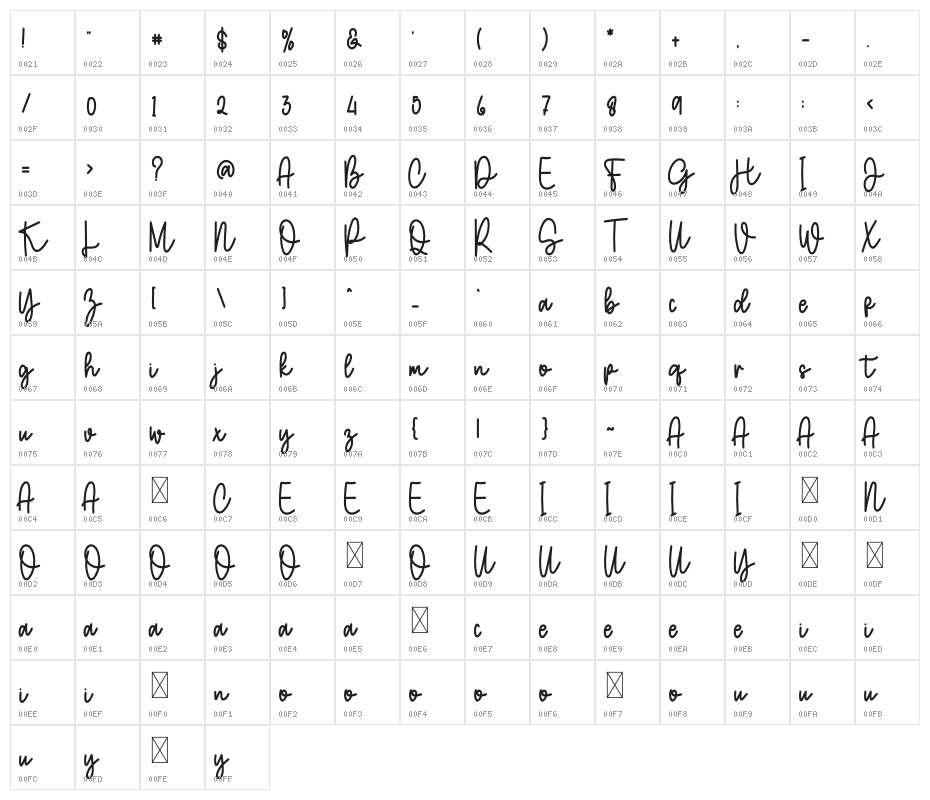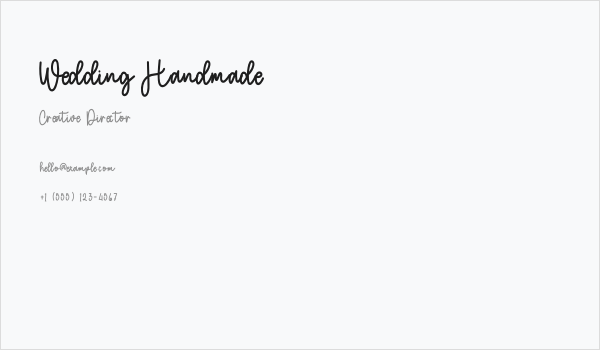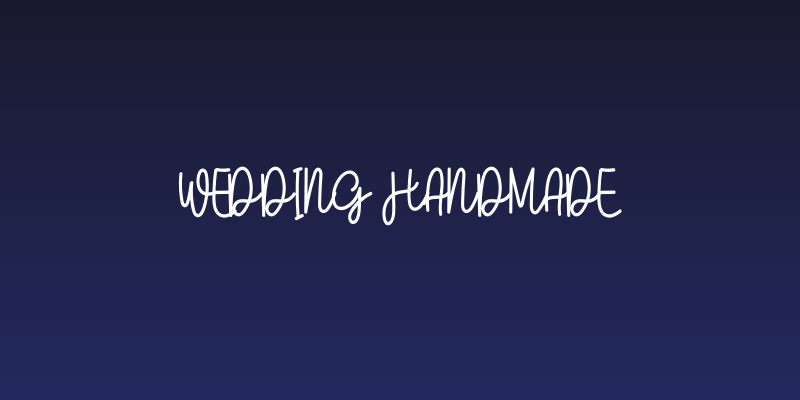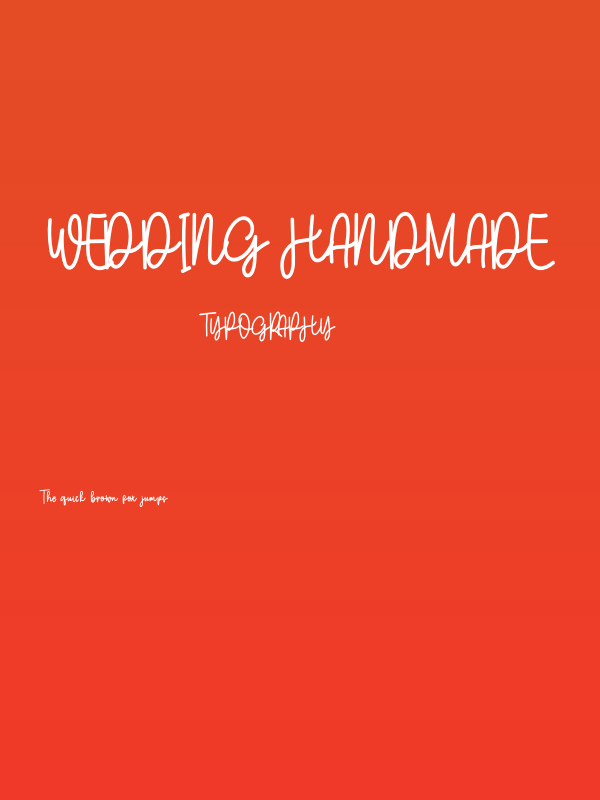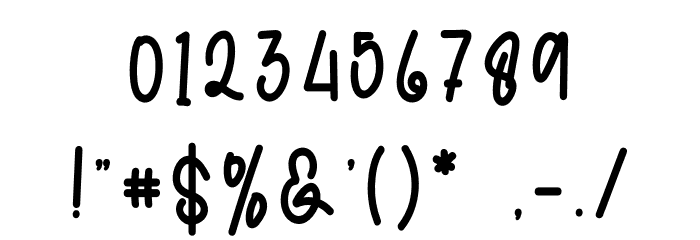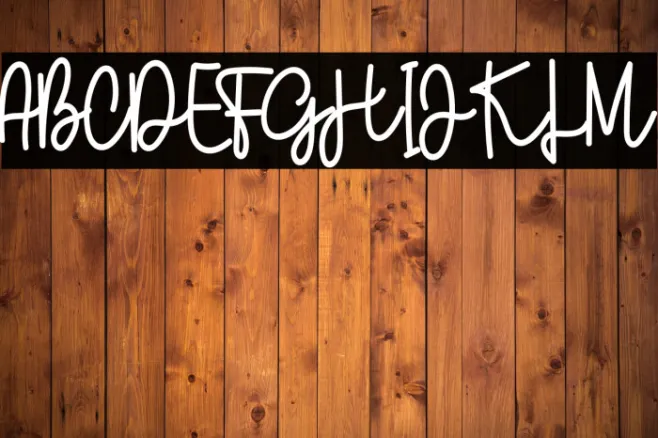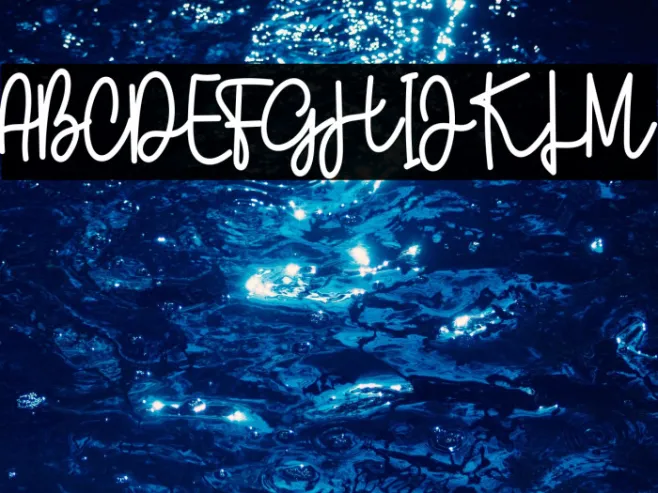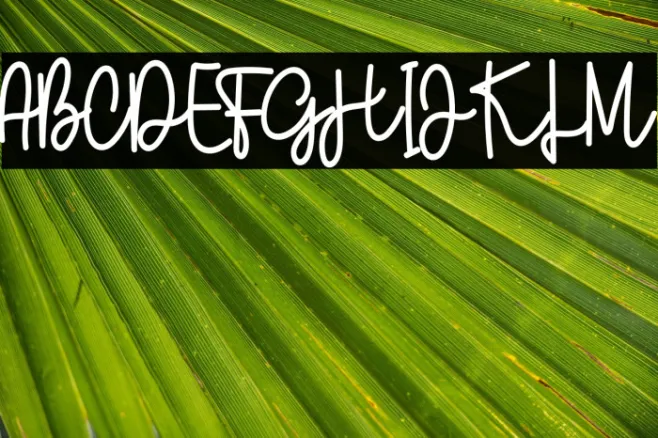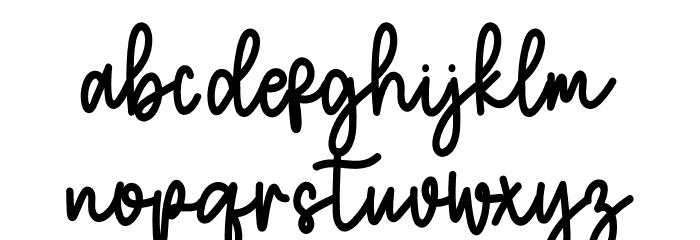
Wedding Handmade Font
Wedding Handmade Description
This font exudes a charming, handwritten style with a playful and elegant flair. The letters are connected in a fluid manner, reminiscent of cursive handwriting, which gives it a personal and intimate feel. The strokes are consistent in thickness, providing a balanced and harmonious appearance. The uppercase letters are tall and slightly narrow, while the lowercase letters maintain a smooth flow, enhancing readability. The numbers and special characters are crafted with the same attention to detail, ensuring a cohesive look across all elements. This font is perfect for projects that require a touch of sophistication and warmth.
| Overall Style | Elegant, Playful |
| Use Case | Invitations, Personal notes, Branding |
| Proposed Projects | Ideal for wedding invitations, greeting cards, personal branding, and romantic-themed designs. |